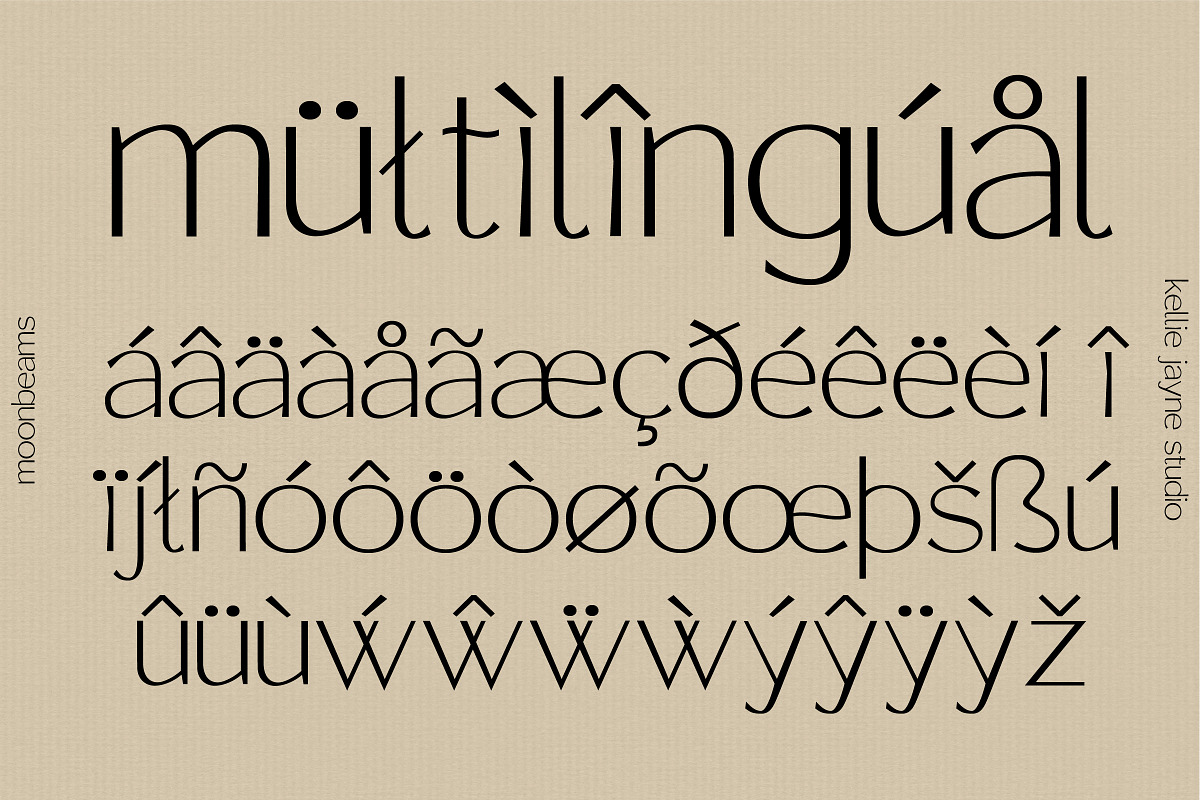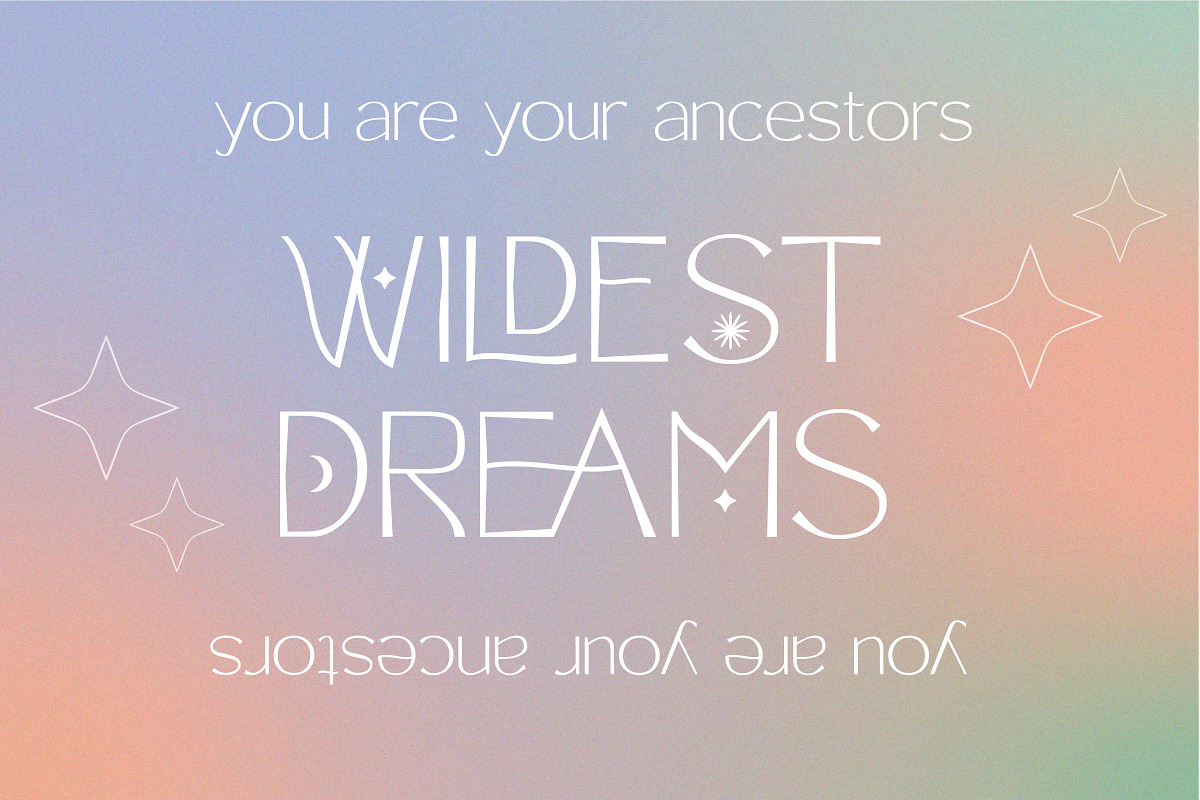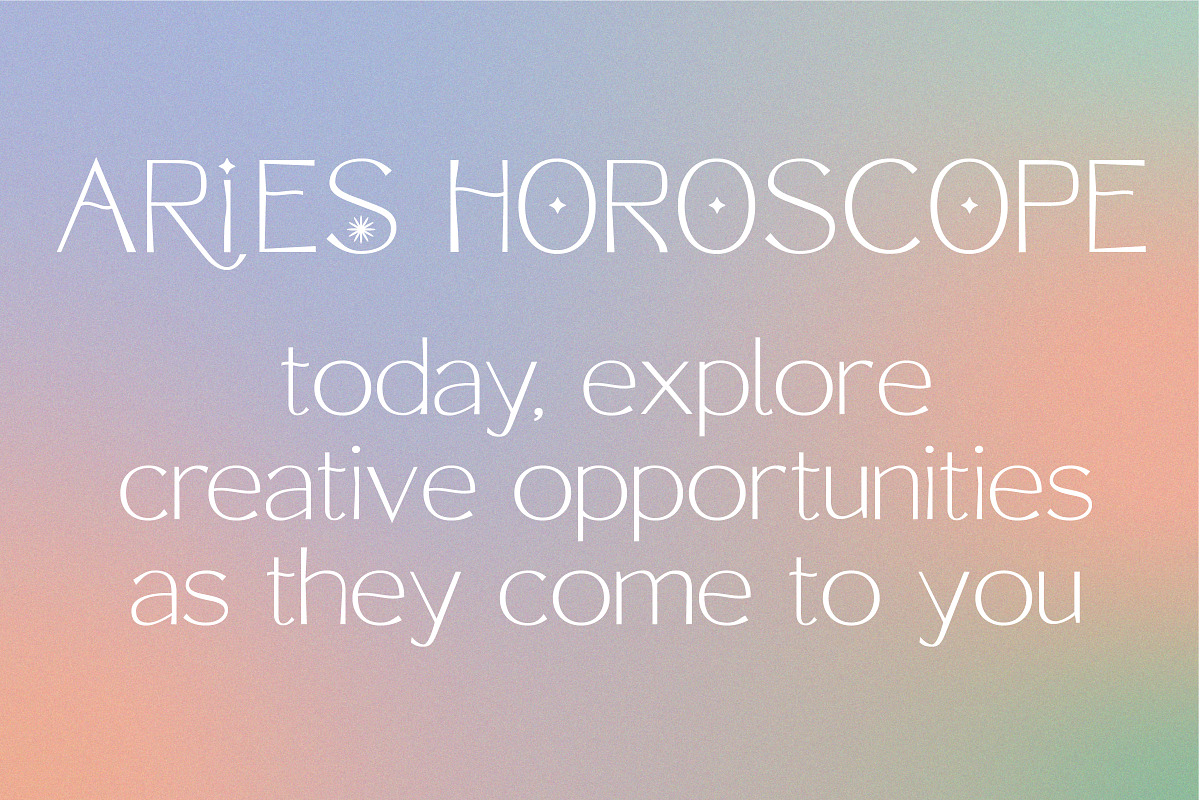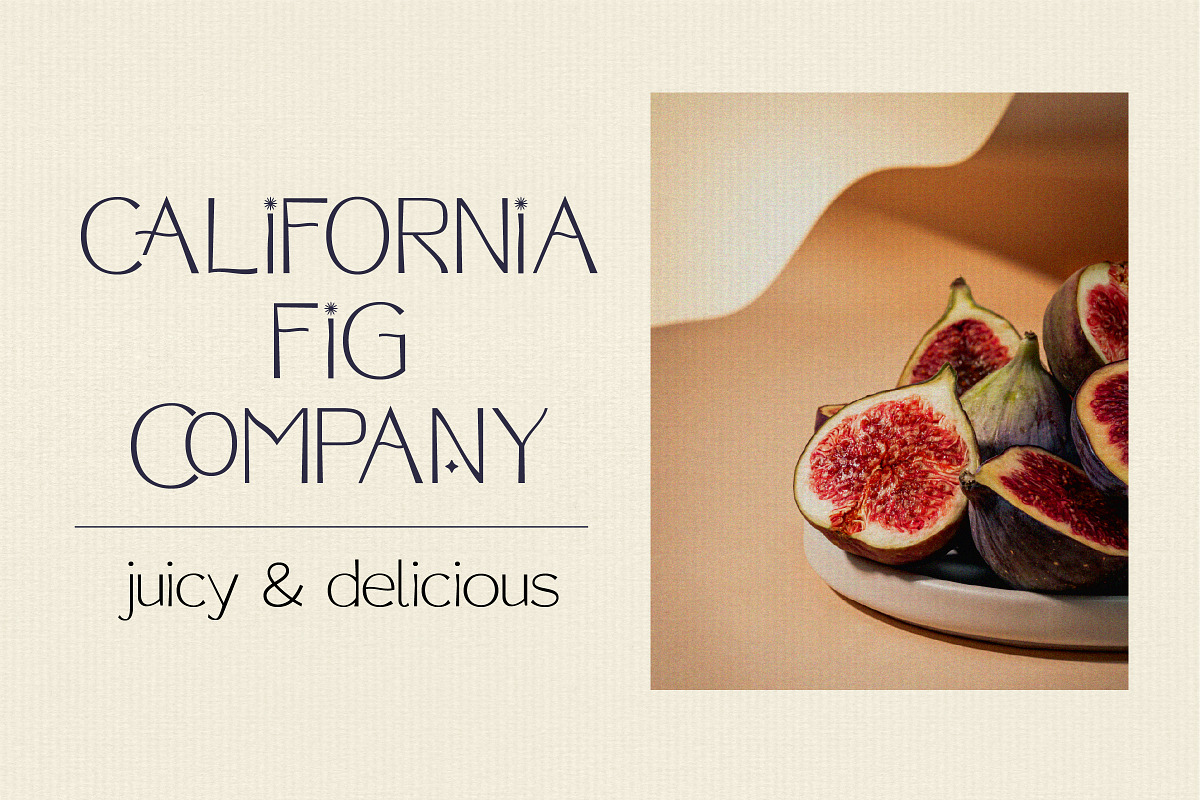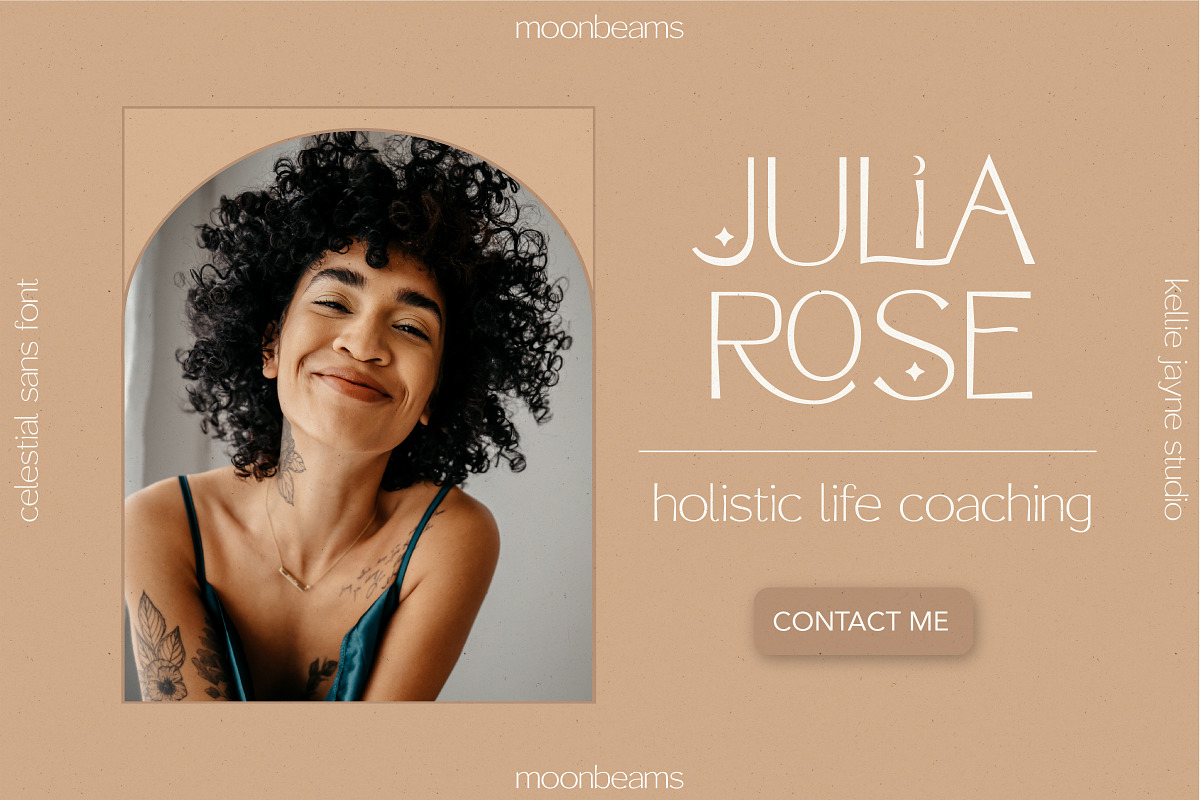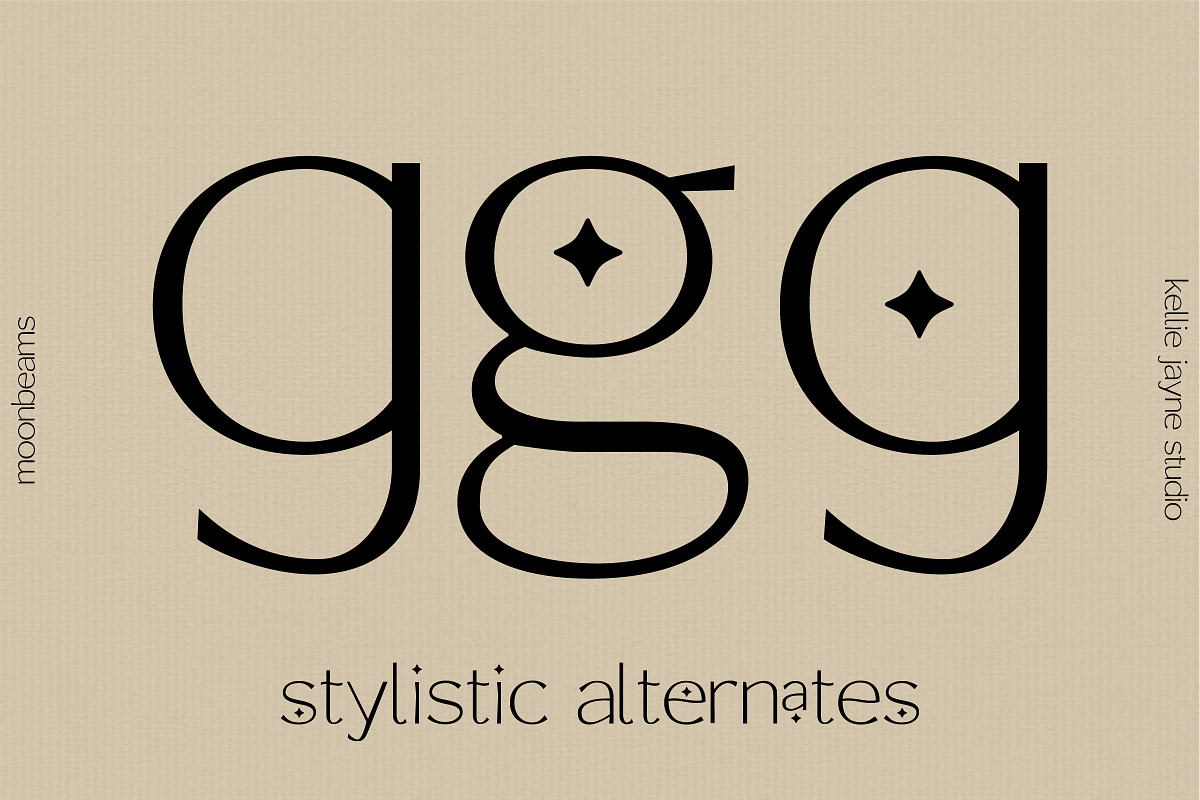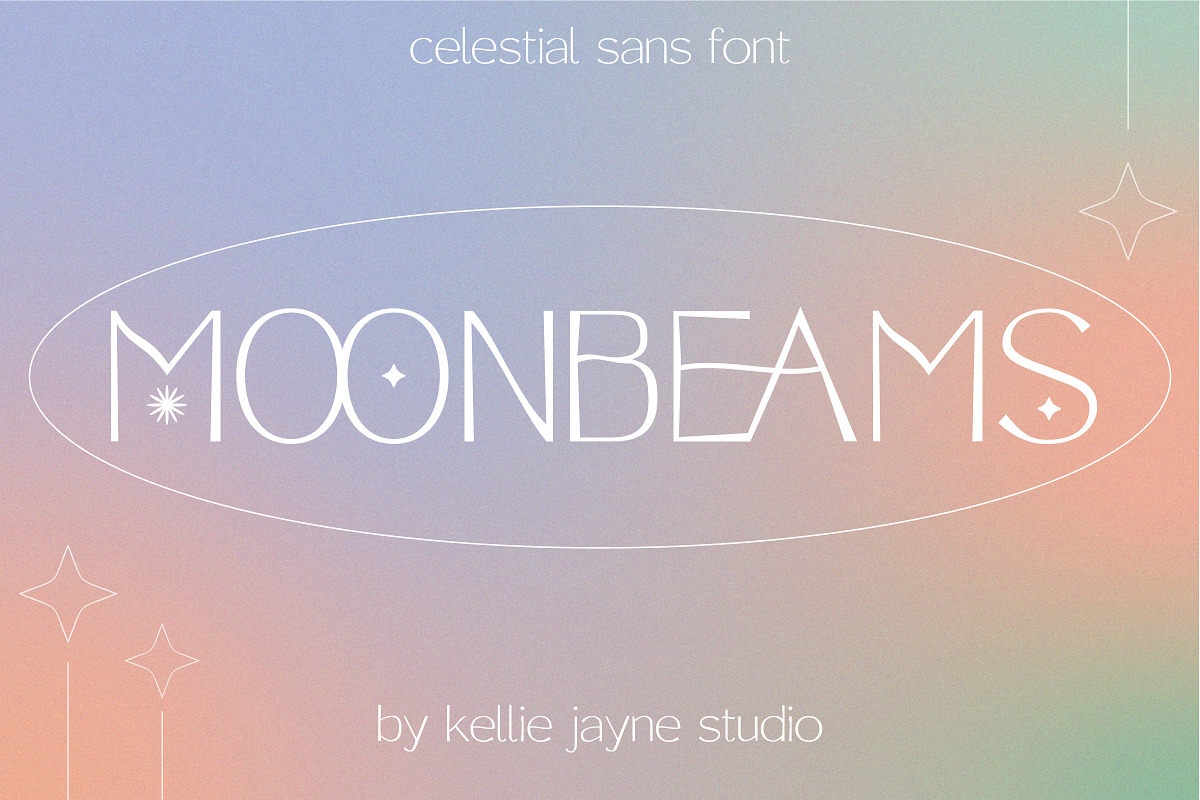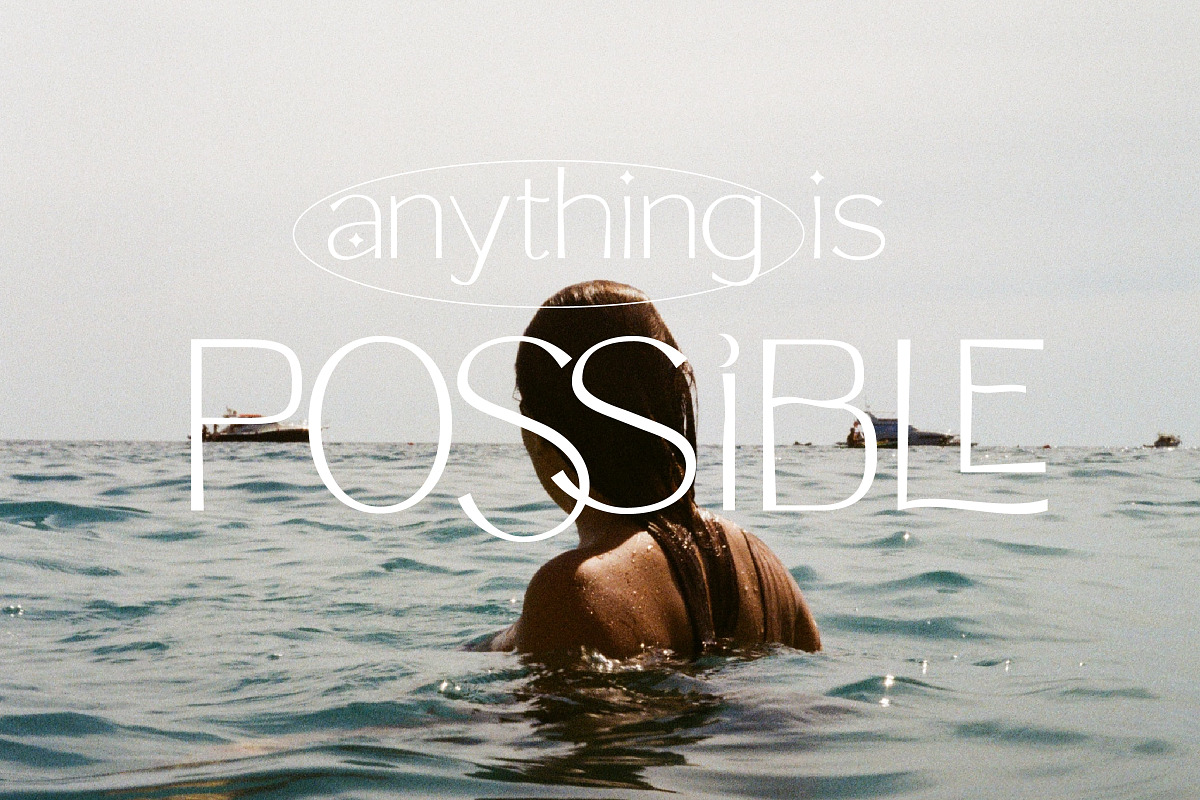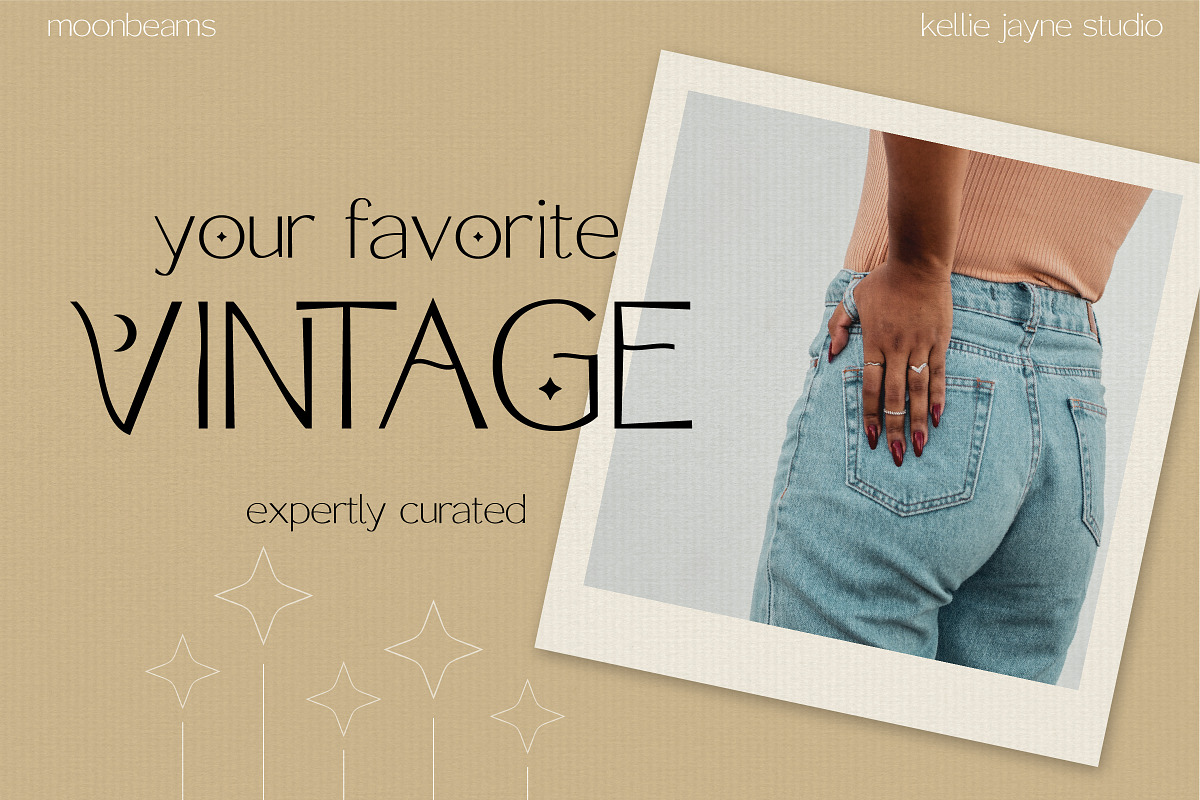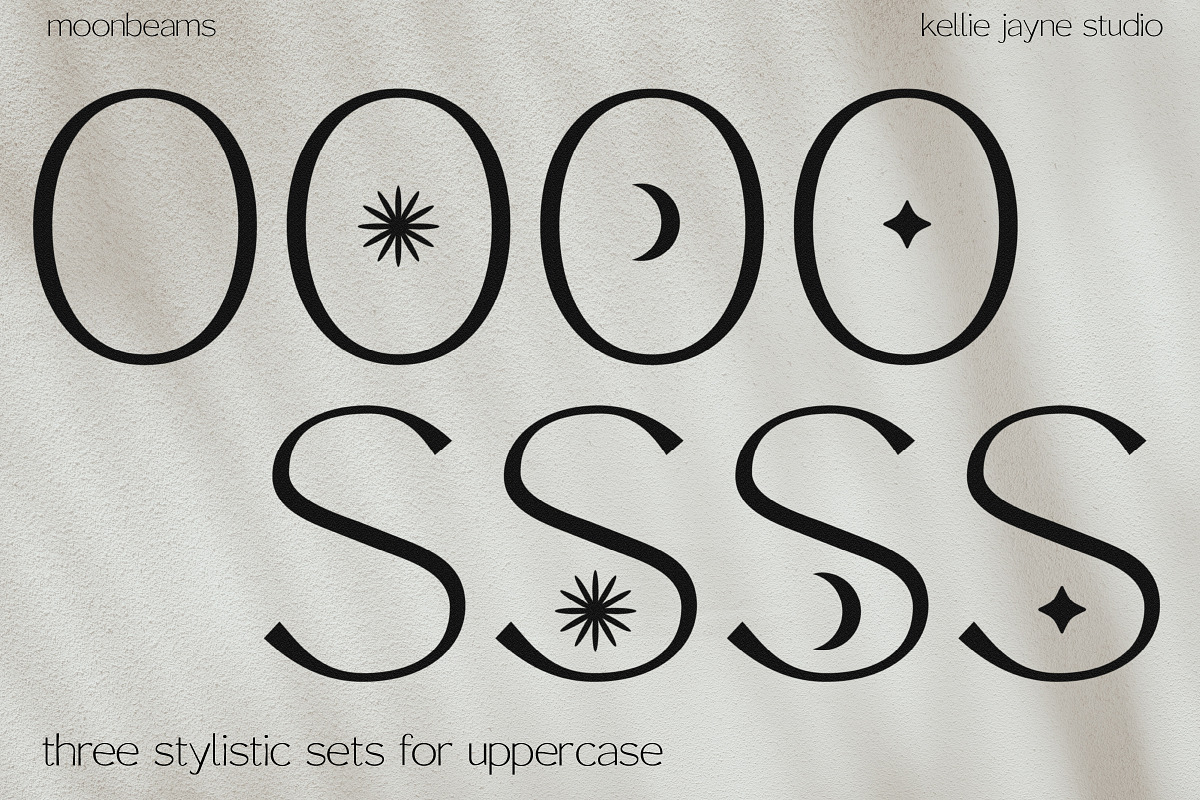
Moonbeams Sans Serif
Moonbeams is a celestial and unique sans serif font with ligatures and stylistic sets featuring stars and moons. Minimalistic, but with a bold funky style, Moonbeams is great for branding, logos, and more.
With stylistic sets, it is quick and easy to add interest to you work but choosing a character with a crescent moon, four pointed star, or 12 pointed star.
Moonbeams features:
- 3 uppercase stylistic sets with moons and stars
- 1 lowercase stylistic set with stars
- 23 custom ligatures